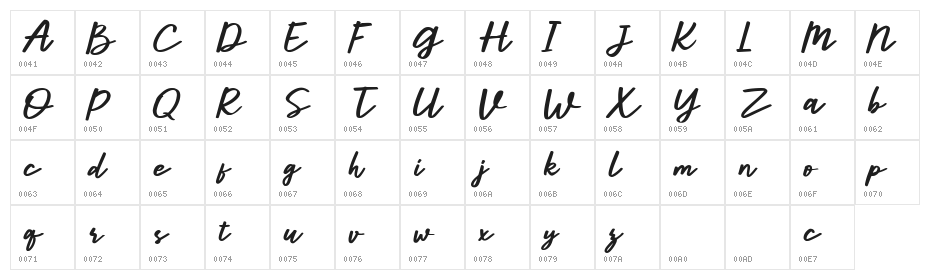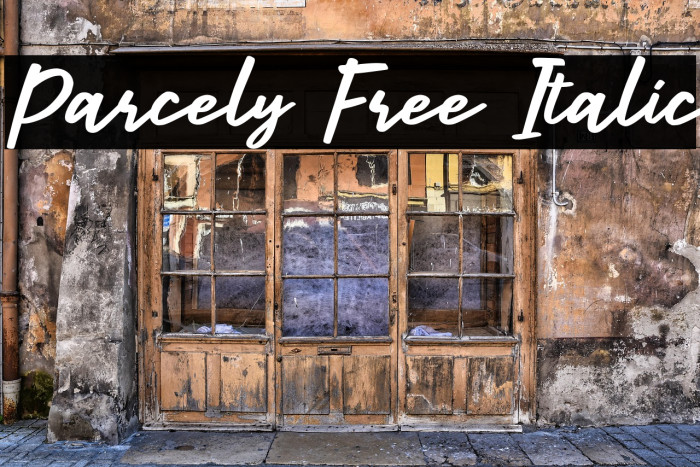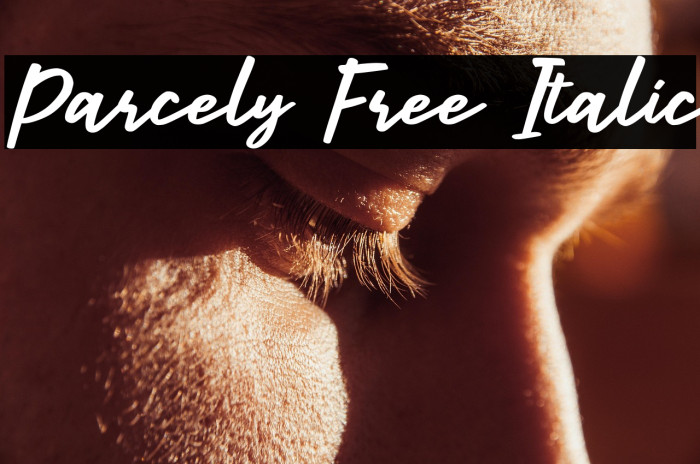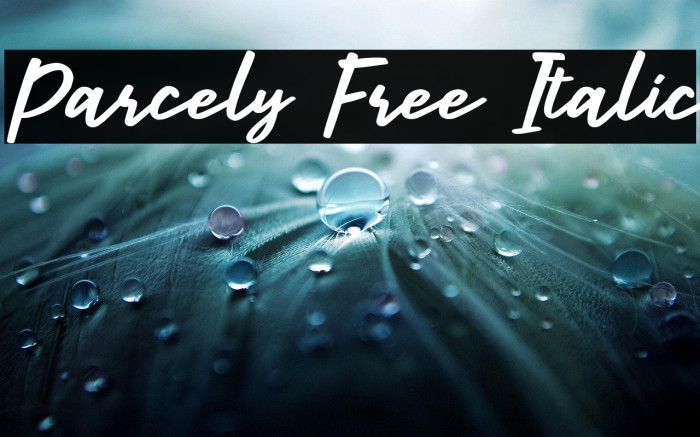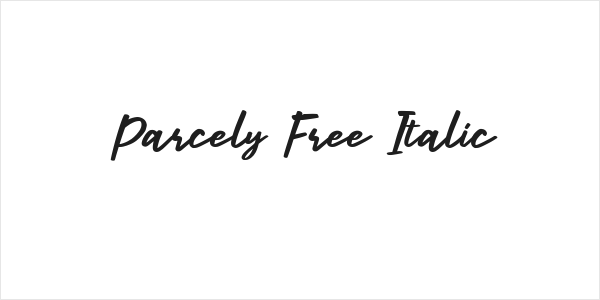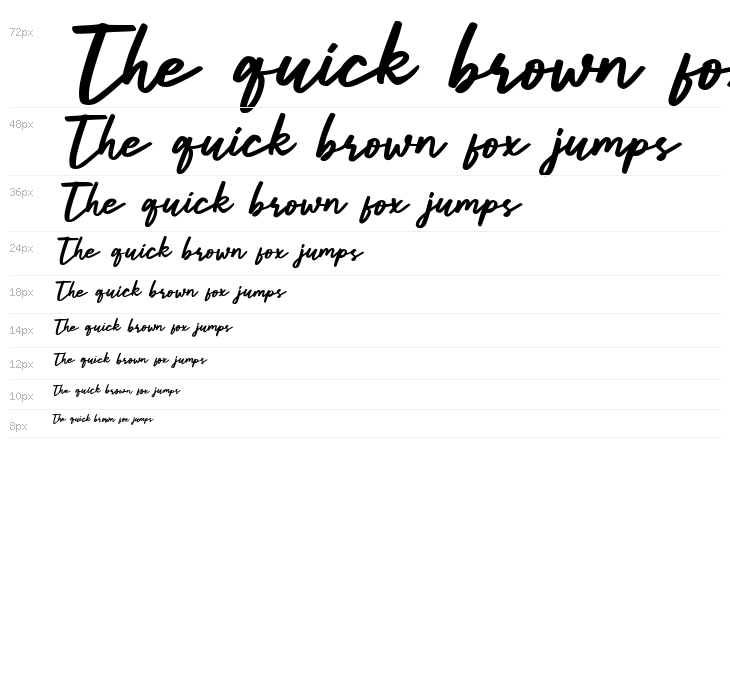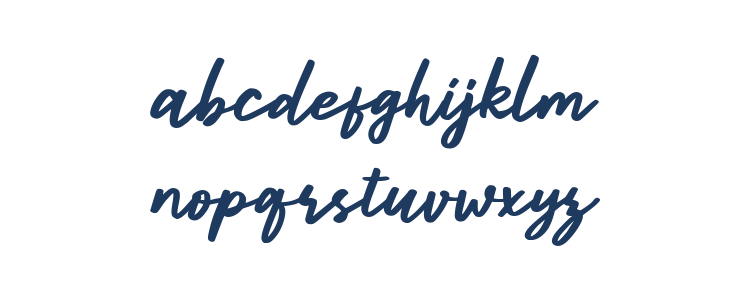
Parcely Free Italic Font
Parcely Free Italic Description
This font features a dynamic and fluid script style, characterized by its smooth, flowing lines and elegant curves. The letters are connected, giving it a handwritten appearance that exudes a sense of personal touch and creativity. The strokes are bold and consistent, providing a strong visual impact while maintaining readability. The italic slant adds a sense of motion and sophistication, making it suitable for projects that require a touch of elegance and flair. The uppercase and lowercase letters are well-balanced, with a harmonious blend of thick and thin strokes that enhance its overall aesthetic appeal.
| Overall Style | Elegant, Handwritten |